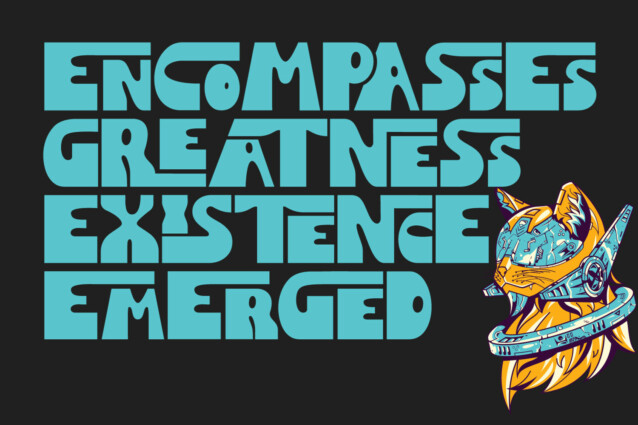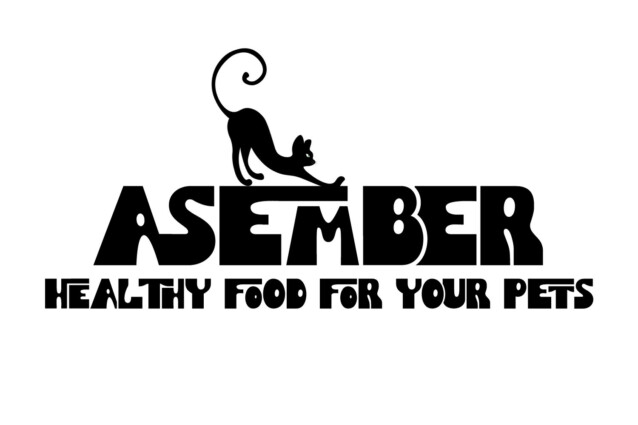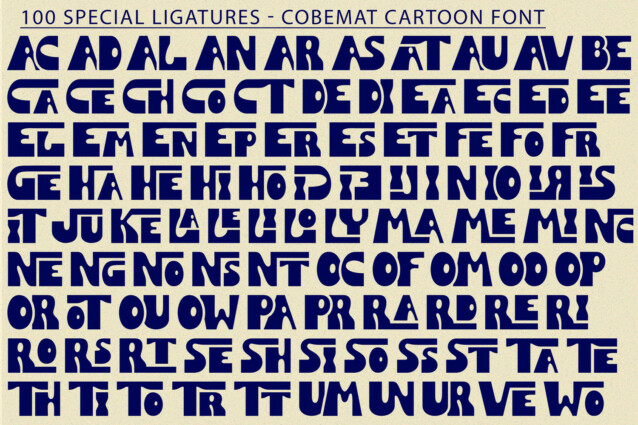
Cobemat Cartoon Font
Cobemat Cartoon Font is a playful, child-like typeface inspired by my father’s doodles. Hand-drawn display font with plenty of ligatures and stylistic alternatives. Every word is a puzzle with pieces changing and shifting as you type. It’s a playful font and will be perfect for book, title branding, product packaging, invitation, quotes, t-shirt, label, poster, logo etc.
Cobemat Cartoon was built with OpenType features and includes 100 ligatures, alternate, numbers, punctuation, and it also supports other languages.
AC AD AL AN AR AS AT AU AV BE CA CE CH CO CT DE DI EA EC ED EE EL EM EN EP ER ES ET FE FO FR GE HA HE HI HO IE IC IL IN IO IR IS IT JU KE LA LE LI LL LO LY MA ME MI NC ND NE NG NO NT NS OC OF OM ON OO OP OR OT OU OW PA PR RA RD RE RI RO RS RT SE SH SI SO SS ST TA TE TH TI TO TR TT UM UN UR VE WI WO